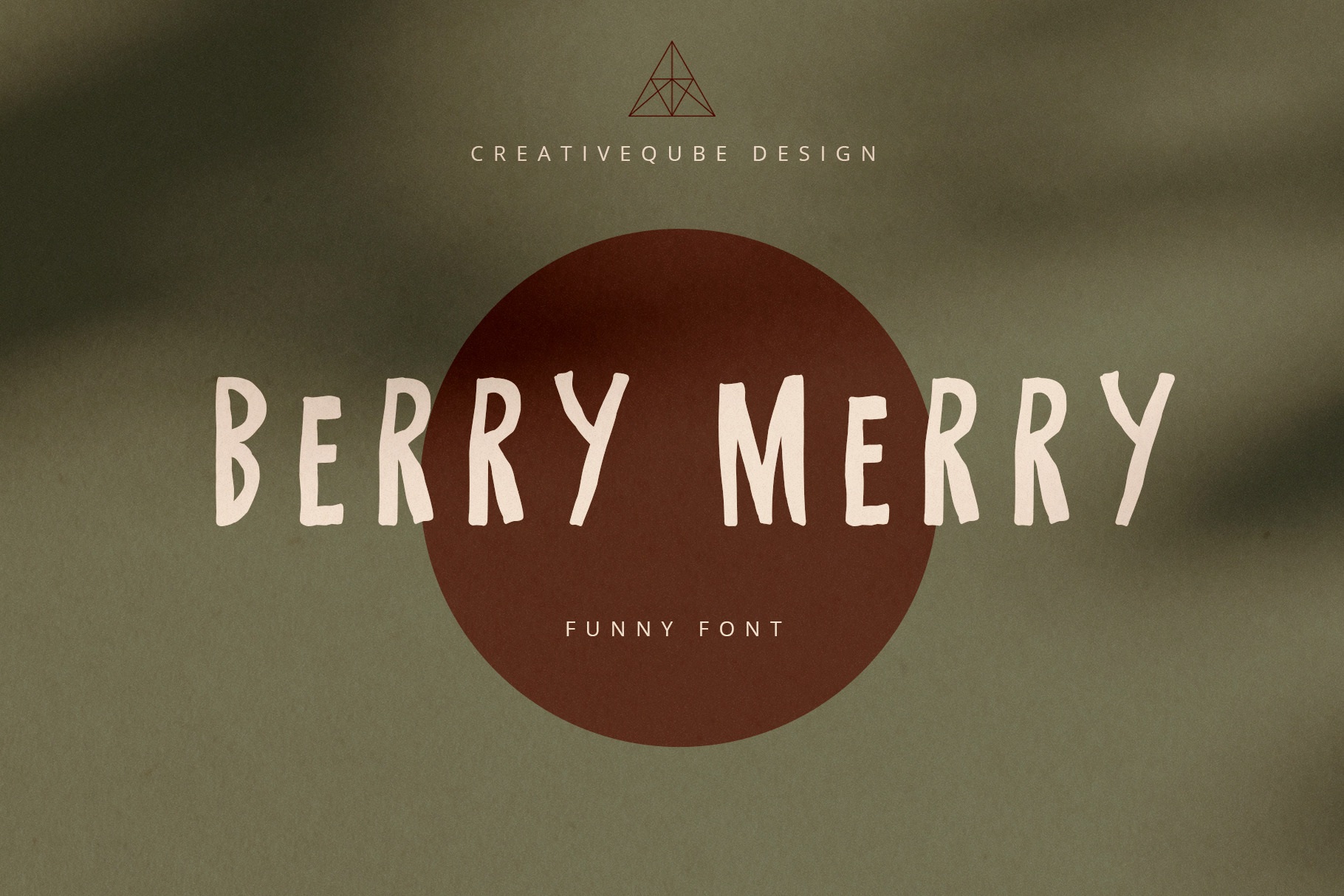
Berry Merry Font
Introducing Berry Merry Caps font
Berry Merry is a wobbly, happy all caps block font that comes in Solid and Outline.
Make fun prints, quotes, labels, invites, stationery, blog headers, book covers and much much more!
International Characters included.